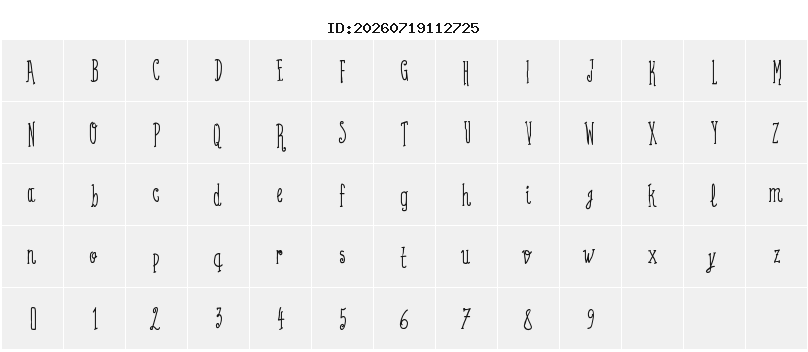
Coffee Written Preview
• Font Name: Coffee Written
• Designer: Galdino Otten
About Coffee Written.otf
Coffee Written.otf is a modern, elegant sans-serif font designed for ultimate readability and visual harmony. Perfect for branding, headlines, web design, and print materials.